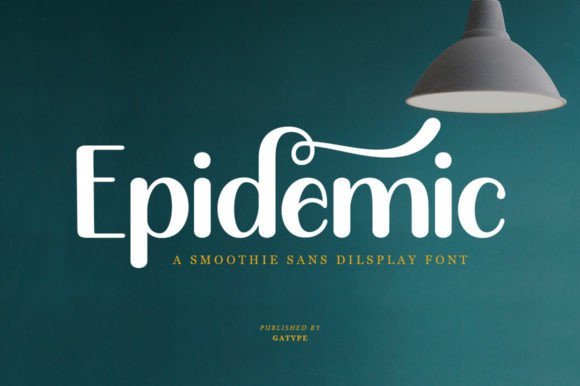
Get Ready to Spread the Word with Epidemic Font
Have you ever stared at a blank page, wondering how to bring your creative vision to life? The spark of inspiration hits, and suddenly, you’re flooded with ideas. This is the moment when the right font can make all the difference. Introducing Epidemic Font, a bold display font that’s as unique as it is versatile.
This customizable font is designed to add a fun and friendly touch to any project, from Christmas themes and Valentine’s Day designs to posters, invitations, and branding projects. Whether you’re a seasoned designer or just starting out, Epidemic Font is the perfect tool to elevate your work and make it stand out. Its simplicity and boldness make it an invaluable asset for designers looking to create eye-catching designs that leave a lasting impression.
Epidemic Font Key Features
- Size: The font family consists of multiple weights, ranging from Light to Black, with 7 weights in total.
- Unique Characteristics: This font features a distinctive, modern design with a unique blend of geometric and organic elements, giving it a striking appearance.
- Language Support: Epidemic Font supports a wide range of languages, including Latin, Cyrillic, and Greek scripts, making it a versatile choice for global applications.
- Character Set: The font includes a comprehensive character set, including a wide range of punctuation marks, symbols, and diacritics.
Epidemic Font Review
As a designer, I was excited to dive into the Epidemic Font and see what it had to offer. Here are my thoughts on its strengths and weaknesses.
- The unique and quirky character of the font is a major draw. It’s perfect for designers who want to add a bit of personality to their projects.
- The font is highly versatile and can be used for a wide range of applications, from logos to typography-heavy designs.
- The font is available in a range of weights and styles, making it easy to customize and adapt to different design needs.
- The font may not be suitable for projects that require a more traditional or conservative aesthetic.
- The font can be a bit overused, so it’s essential to use it thoughtfully and not rely on it too heavily in a design.
- The font may not be compatible with all operating systems or devices, which could cause issues with readability or display.
Overall, I think the Epidemic Font is a solid choice for designers who want to add some flair to their projects. While it has its limitations, its unique character and versatility make it a great addition to any design arsenal.
Tips for Getting the Most Out of Epidemic Font
To get the most out of Epidemic Font, experiment with different font sizes, styles, and colors to create a visually appealing design. Use it to add emphasis to your text, create a bold statement, or add a touch of drama to your project.
Epidemic Font is commonly used in projects that require a bold, attention-grabbing font. Some common use cases include:
- Marketing materials, such as posters and flyers
- Event invitations and promotional materials
- Headlines and titles in publications and websites